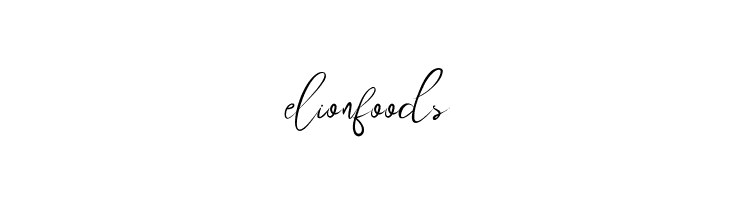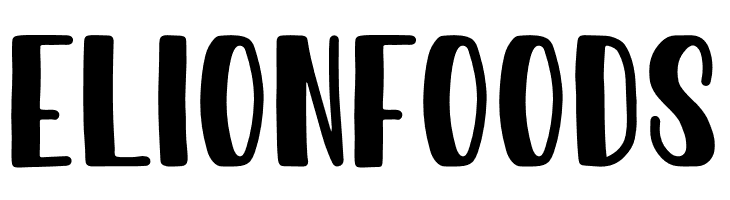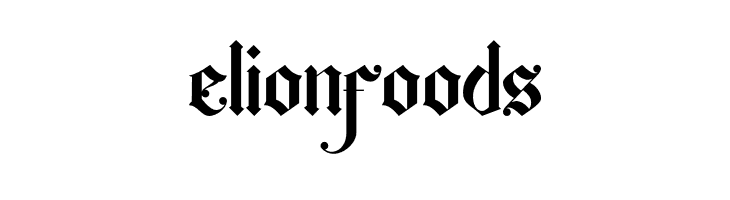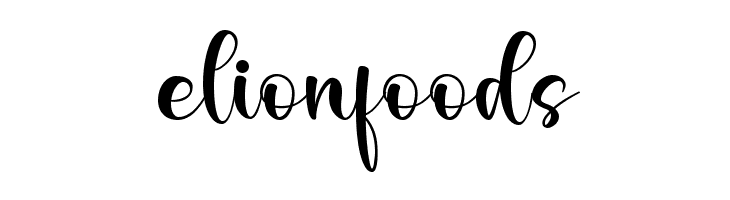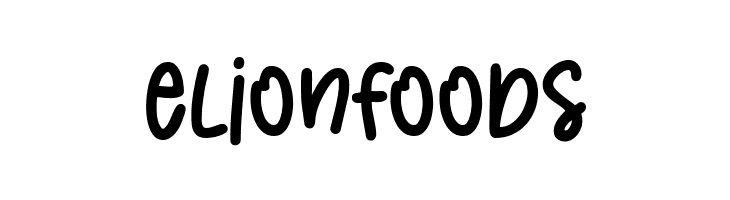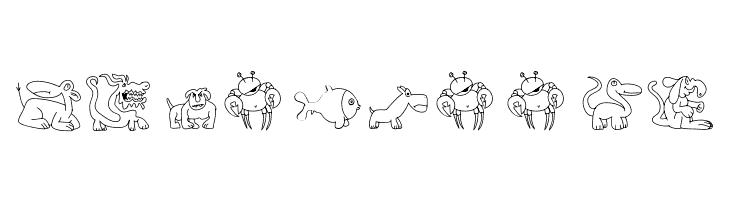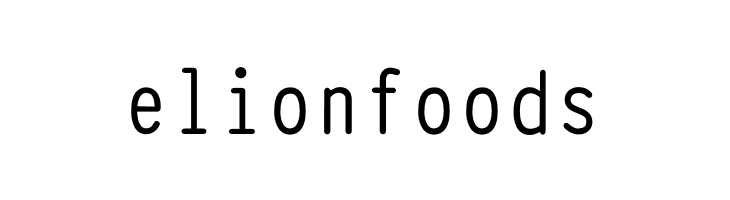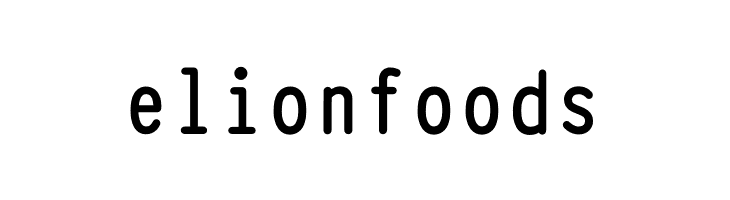
A modern, geometric font with abstract and artistic elements.
Playful handwritten script font.
A bold, expressive handwritten font with dynamic strokes and a textured appearance.
A bold, expressive font with a handwritten, cursive style.
A collection of diverse, custom-designed brand logos with varied typographic styles.
An elegant and flowing script font with graceful curves and delicate strokes.
A bold, playful handwritten font with a casual and approachable style.
A playful, casual handwritten font with irregular strokes and a whimsical style.
A playful, handwritten font with a casual and organic style.
A playful, casual handwritten font with dynamic strokes and a lively appearance.
A playful, hand-drawn font with tall, narrow characters and a whimsical style.
An elegant, flowing script font with delicate, cursive strokes.
An ornate Blackletter font with intricate details and decorative flourishes.